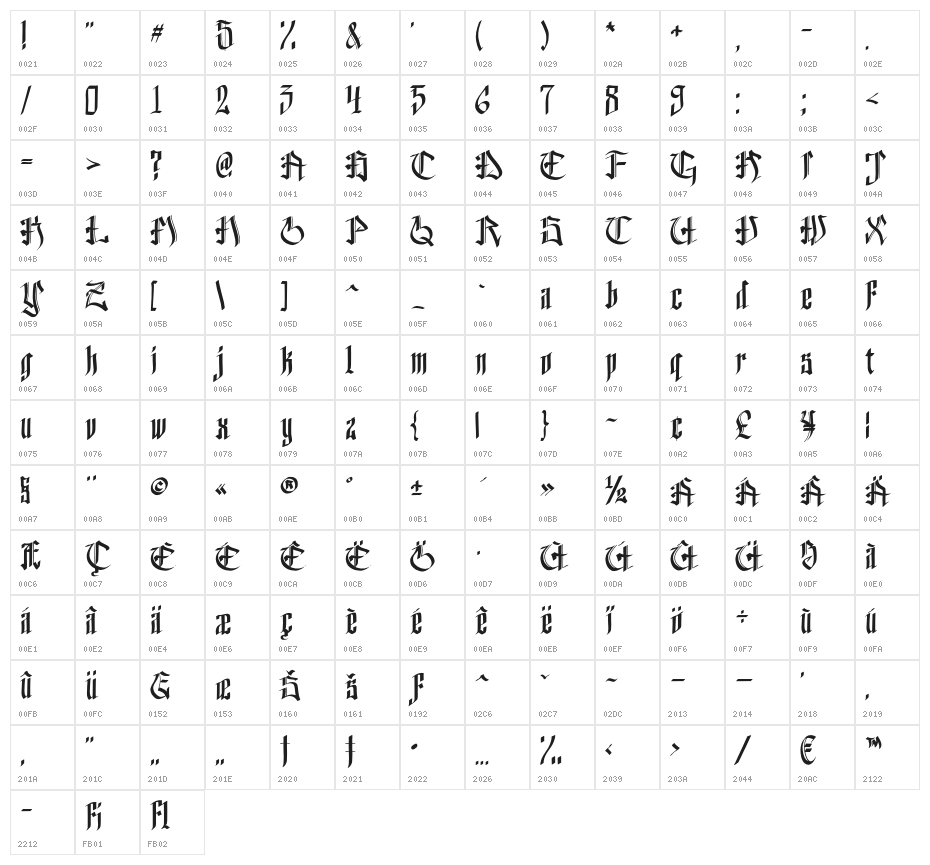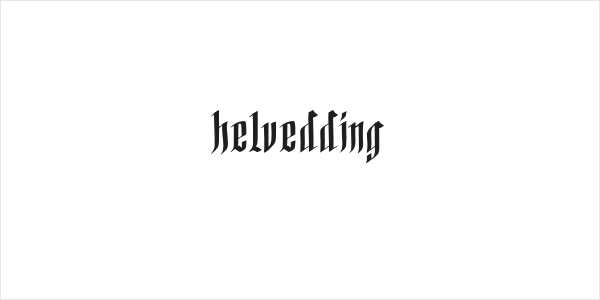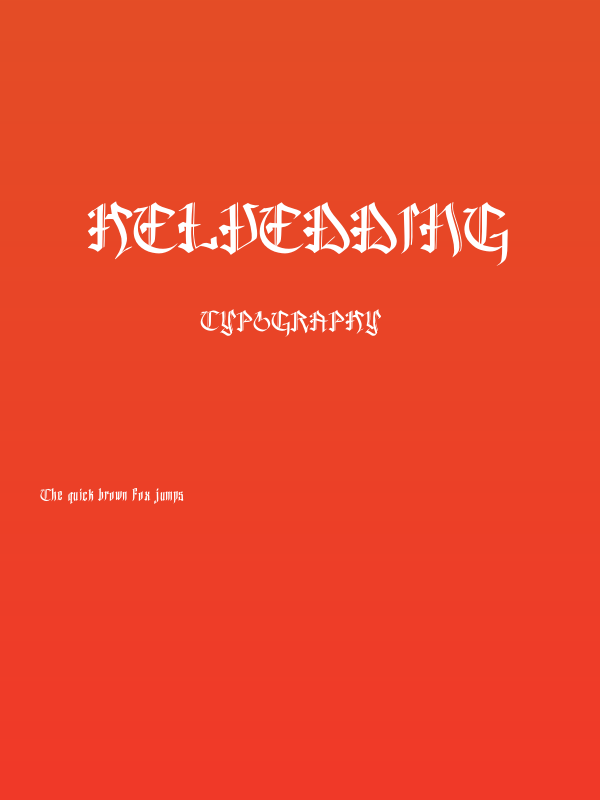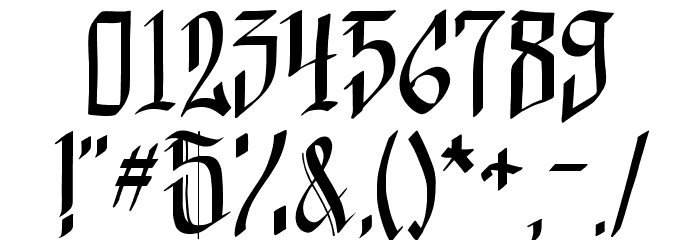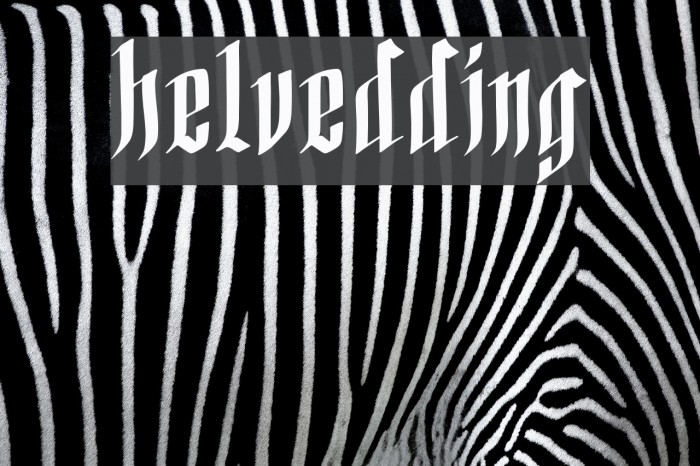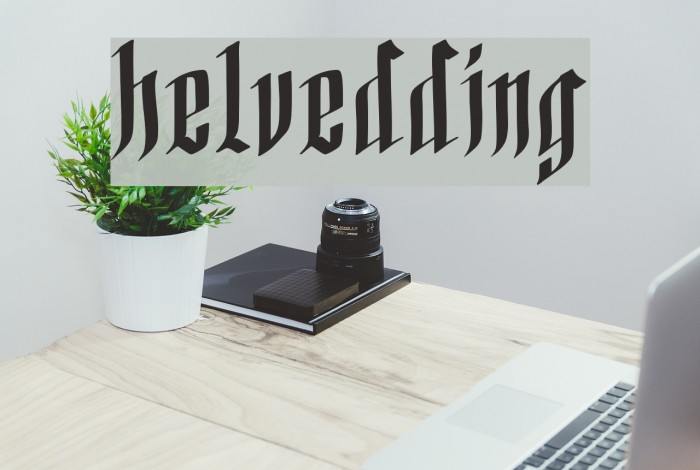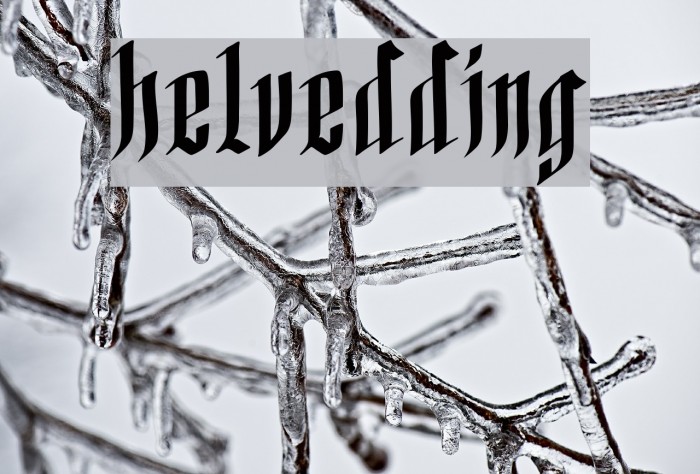
helvedding Font
helvedding Description
This font exhibits a classic Blackletter style, characterized by its intricate and ornate letterforms. The uppercase letters are particularly elaborate, featuring sharp angles and dramatic strokes that convey a sense of historical elegance. The lowercase letters maintain the same level of detail, with elongated verticals and distinctive serifs that enhance the overall Gothic appearance. The numerals are consistent with the style, offering a bold and striking presence. Special characters are equally ornate, fitting seamlessly into the font's aesthetic. This font is ideal for projects that require a touch of medieval or traditional flair.